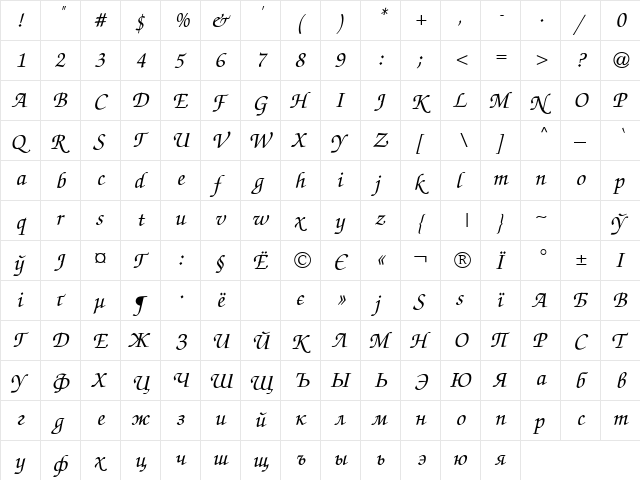
Zapf Chance Italic
Design Context for Zapf Chance Typeface
Zapf Chance is a composed and adaptable typeface that performs quietly and consistently across a wide range of design contexts. The slanted form adds forward momentum and visual energy.
Pro Tip: Use Zapf Chance for emphasis, pull quotes, and subheadings where its slanted energy can add rhythm to the layout.